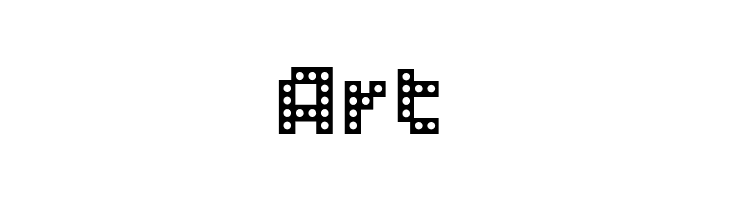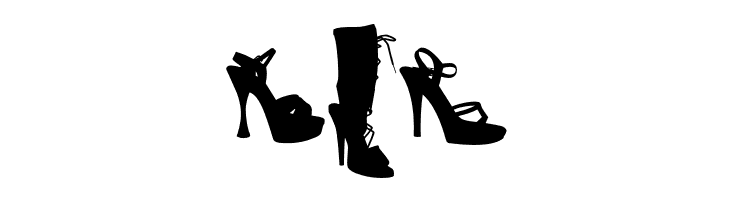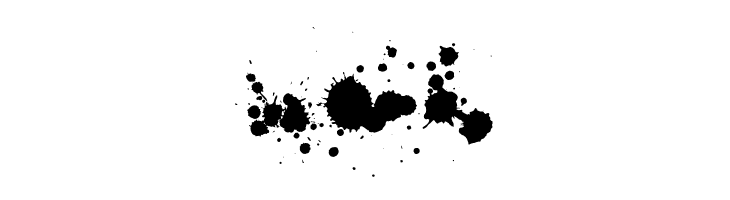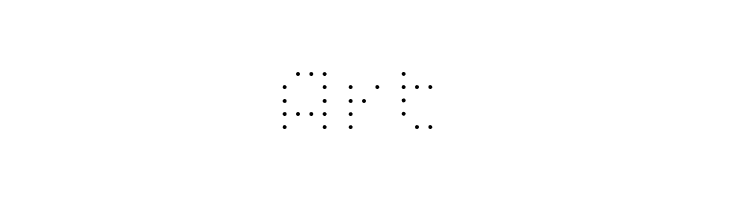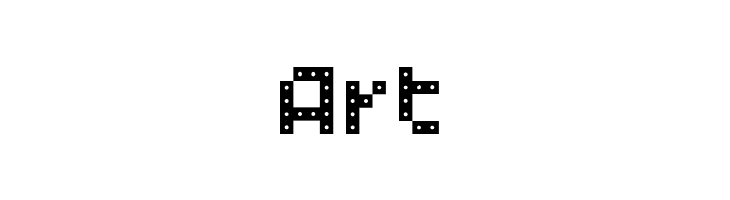
• WC Wunderbach Perfo Bta DemiBold
• WC_AquaBlues_Bta
• WC_AquaBlues_Bta Bold
A bold, futuristic font with rounded shapes and dot patterns, ideal for tech-inspired designs.
• WCAquaBluesBta-Bold
A bold, geometric font with a futuristic and digital style.
• WCFetishBta
A display font made from high-heeled shoe silhouettes.
• WCPIXHOLEBta
A playful, pixelated font with a dot matrix style, ideal for retro digital themes.
• WCPIXHOLEBta-Bold
A bold, pixelated font with circular cutouts, perfect for digital or retro-themed designs.
• WCPIXHOLEBta-Light
A dot matrix style font with a retro, digital display aesthetic.
• WCPIXHOLEBta-Thin
A modern dot matrix font with evenly spaced dots forming each character.
• WCRhesusABta
An artistic font with ink splatter-inspired characters, offering a chaotic and expressive style.